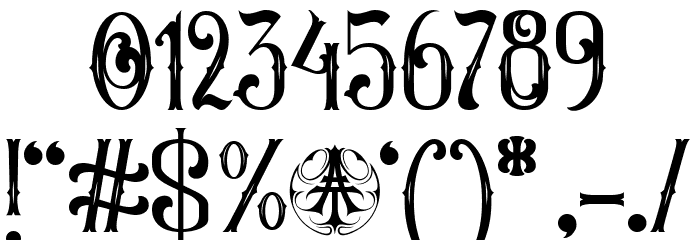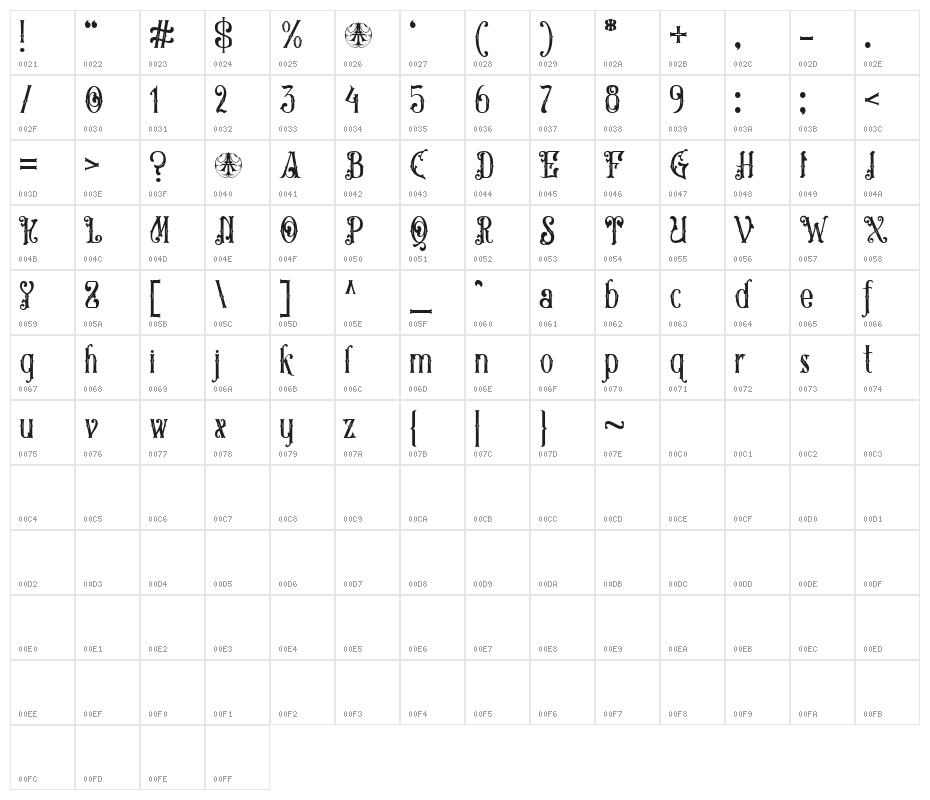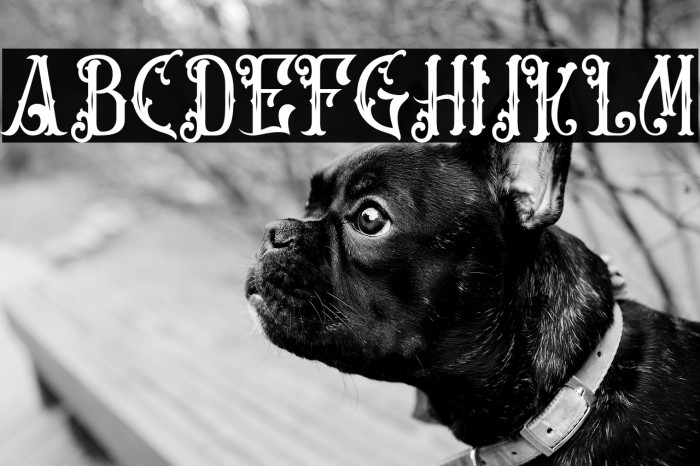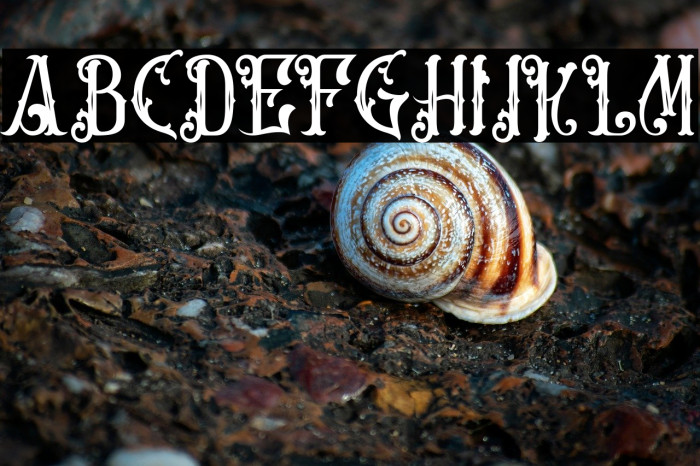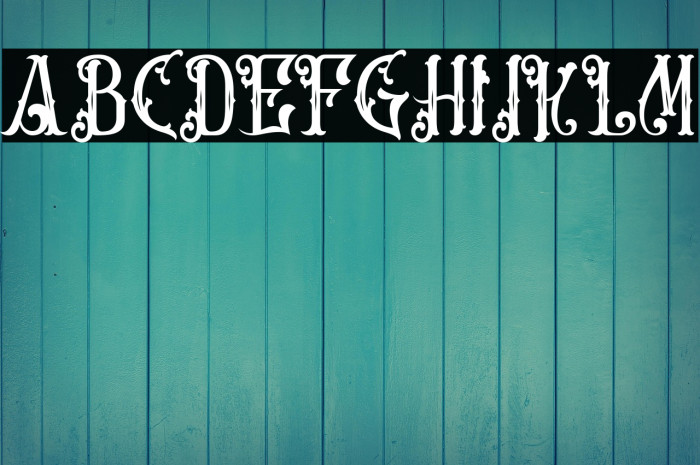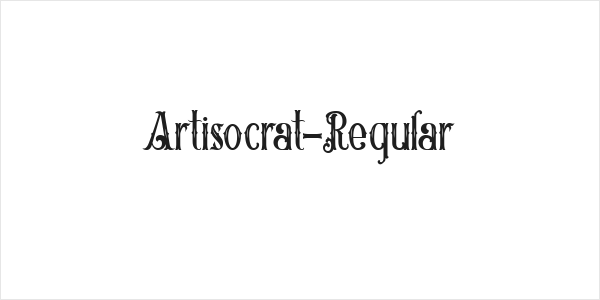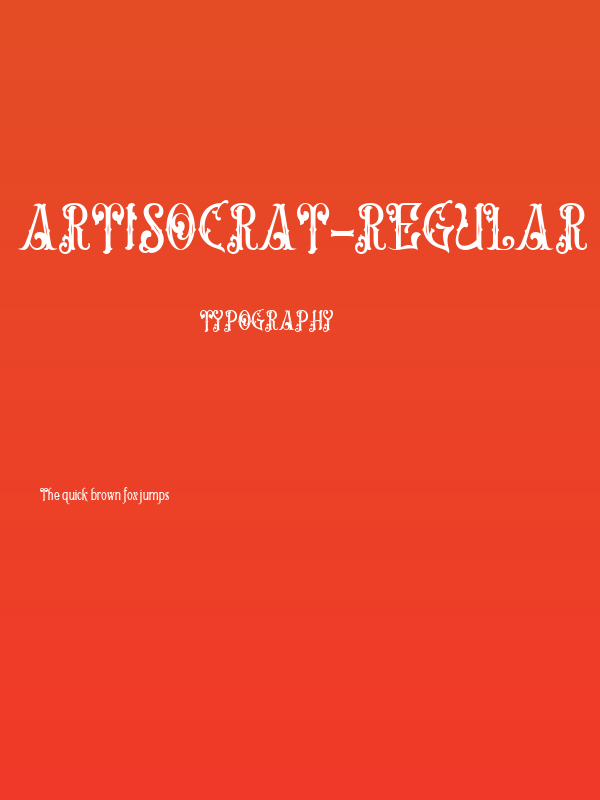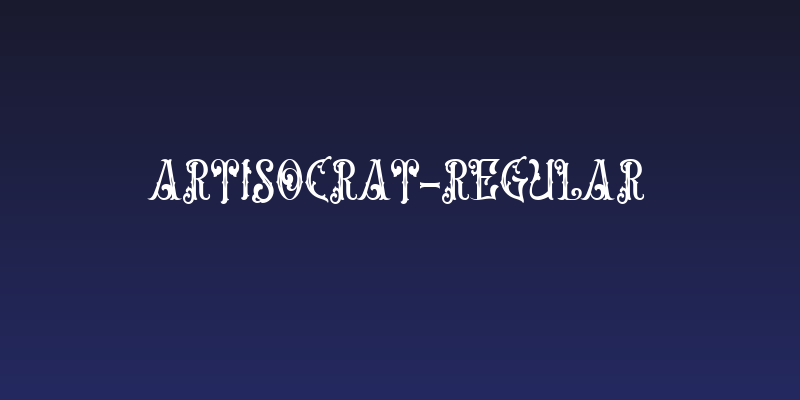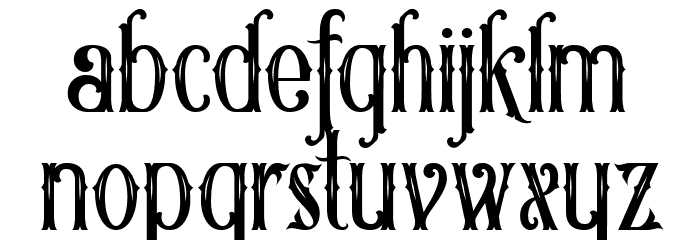
Artisocrat-Regular Font
Artisocrat-Regular Description
This font features an ornate and decorative style, characterized by intricate swirls and embellishments on each letter. The uppercase letters are particularly elaborate, with flourishes that extend beyond the basic letterforms, giving it a regal and sophisticated appearance. The lowercase letters maintain a similar decorative theme, though slightly more restrained, ensuring readability. Numbers and special characters are designed with the same attention to detail, making them cohesive with the overall aesthetic. The font's unique style makes it stand out, ideal for projects that require a touch of elegance and creativity.
| Proposed Projects | Ideal for wedding invitations, luxury branding, event posters, and artistic projects. |